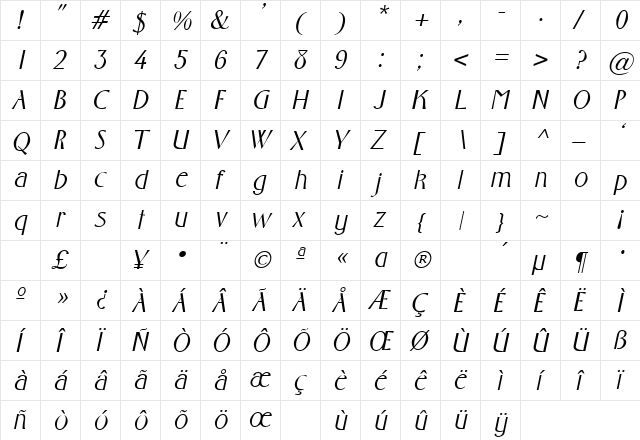
Gabriel Italic
Design Context for Gabriel Typeface
Gabriel offers clean, dependable letterforms without strong stylistic allegiance, making it a practical choice for designers who need flexibility. The slanted form adds forward momentum and visual energy.
Pro Tip: Use Gabriel for emphasis, pull quotes, and subheadings where its slanted energy can add rhythm to the layout.